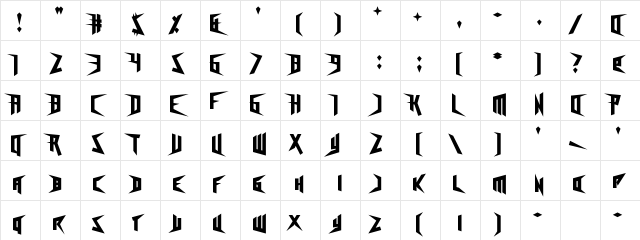
Freestyling Centipede Regular
| Designer | NAL |
Design Context for Freestyling Centipede Typeface
Freestyling Centipede is a composed and adaptable typeface that performs quietly and consistently across a wide range of design contexts.